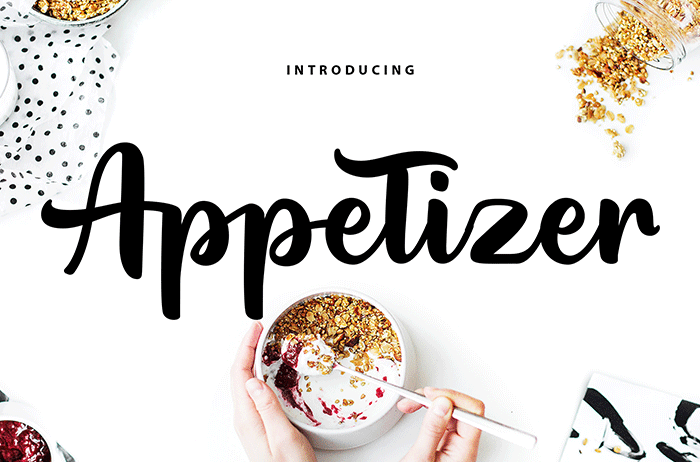
Appetizer Script Font is a distinct, elegant script that blends traditional influences into a contemporary aesthetic. Its well balanced Latin details contain distinctive contrasts. Use Appetizer to achieve an exquisite, yet subtle look and maximum versatility. Thanks to Vunira for sharing this font. This font free for personal use only, if you need commercial use and full version please download in here.
Designed By : Vunira Studio